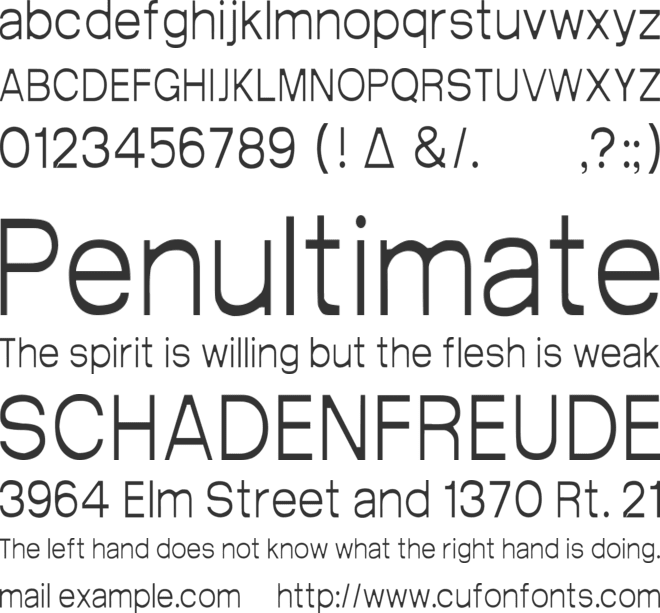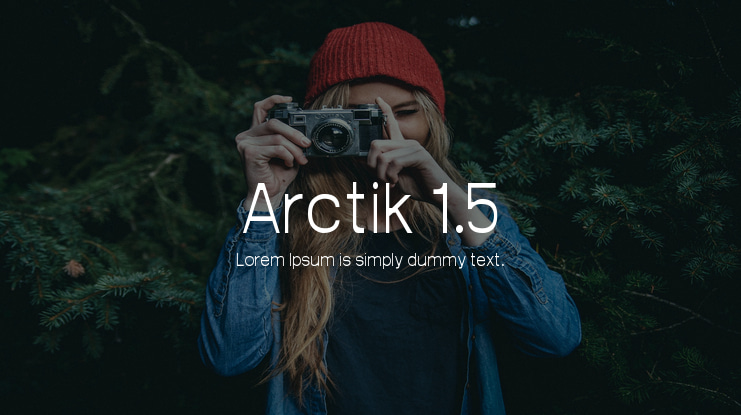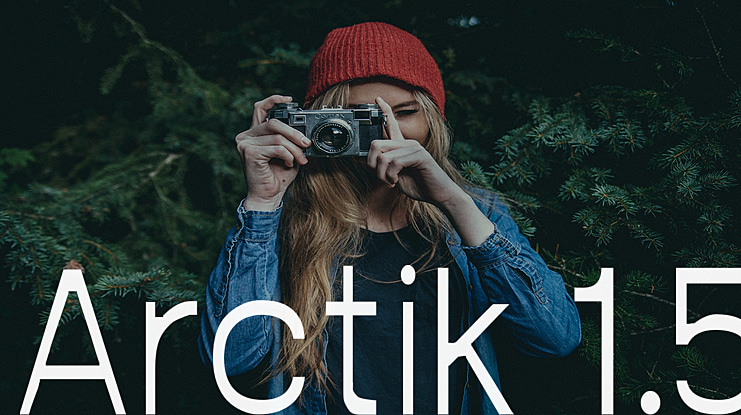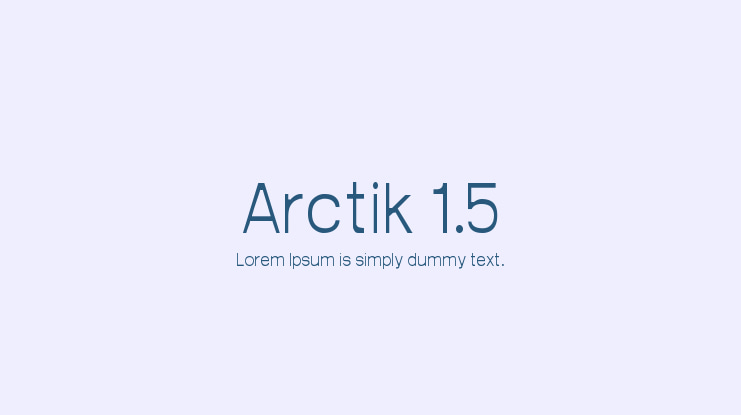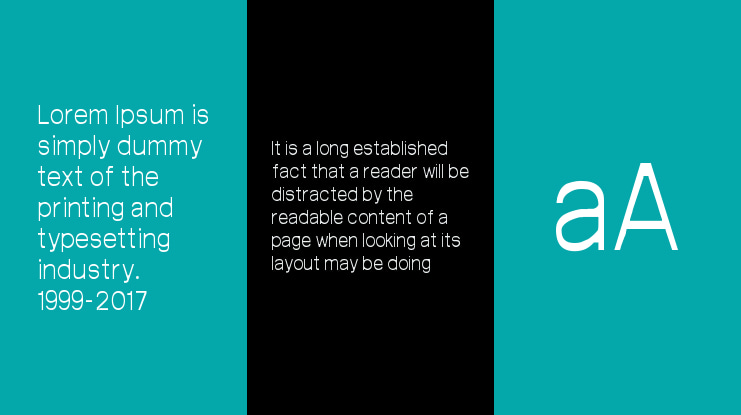
Arctik 1.5 Font Family
This is Arctik. It's a brand new, custom-made font, available in 9 weights, and best of all, it's completely free to use!
Arctik takes inspiration from both humanist and neo-grotesque fonts, bringing the warm classiness of fonts like Helvetica or Rail Alphabet, with a more modern tinge, with inspiration from Roboto, and Frutiger. The font appears human, and hand-crafted, with small irregularities in the thickness and curves adding to the font's character.
Arctik includes a full upper and lowercase alphabet, with numbers, full punctuation, and some extras. It's available in 9 weights, all included in the zip package, alongside the promotional artwork and some advice and information on licensing.